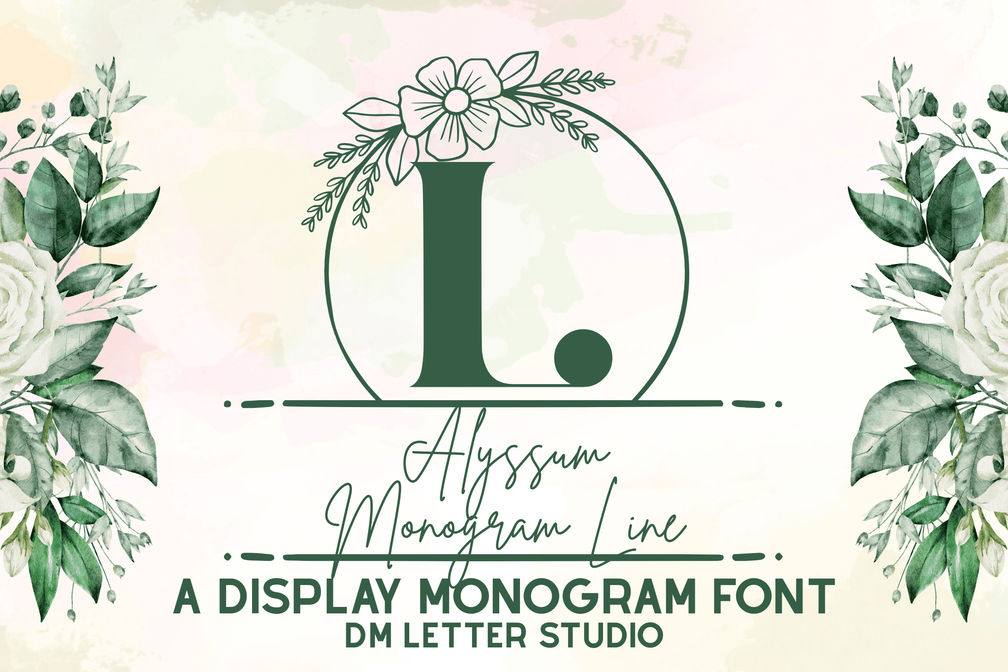
Alyssum Line Monogram
Alyssum Line Monogram – Minimal Floral Line Monogram Font
Alyssum Line Monogram is a delicate and minimalistic monogram font that blends the simplicity of fine lines with the beauty of floral elegance. Each character is thoughtfully framed in a clean linear style and decorated with graceful alyssum-inspired flourishes. It’s perfect for refined branding, wedding materials, luxury packaging, feminine logos, and spring-themed design work.
• Minimalist Line Art Style: Crisp monoline design for a sleek, modern aesthetic.
• Botanical Accents: Features light, floral embellishments inspired by alyssum flowers.
• Versatile for Elegant Projects: Ideal for logos, invitations, high-end stationery, and wellness or beauty branding.
• Clean, Professional Look: Balanced to work well in both digital and print formats.
• Multilingual Support: Includes uppercase letters, basic punctuation, and international characters.